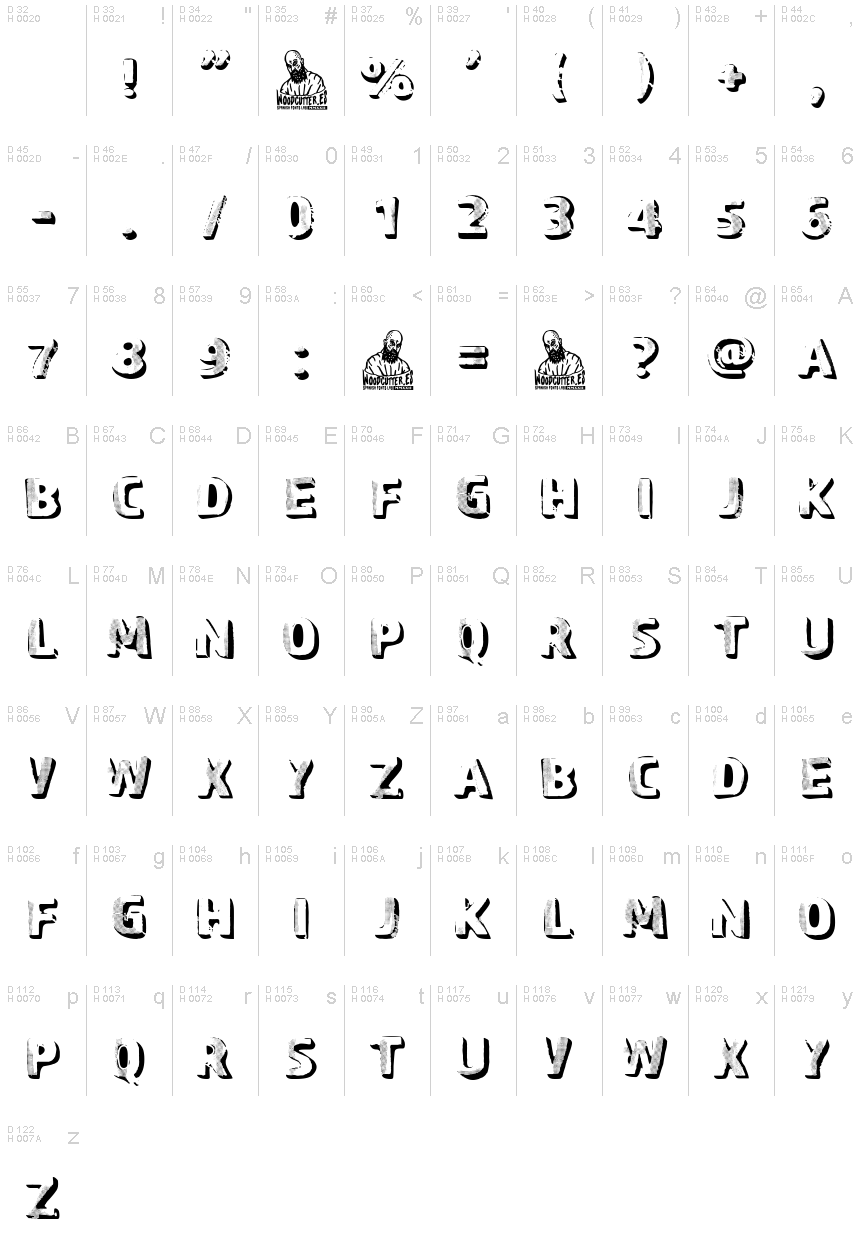
Graphic Stepfather
Graphic Stepfather font by Woodcutter is a bold display typeface with an eroded and distressed finish that instantly grab attention. Reminiscent of graffiti tag art and retro design styles, this dynamic font has high energy and a playful appeal. It barely feels constrained to the print but flows off generously in every direction making it perfect for billboards, posters, flyers, banners, and more.
Enjoy every letter’s unique twists as you use them to playfully put together appealing magazine or newspaper headlines. Inspire students by introducing Graphic Stepfather into educational material such as fun textbooks kids would love studying with or somehow consider homework using coloring books as its content.